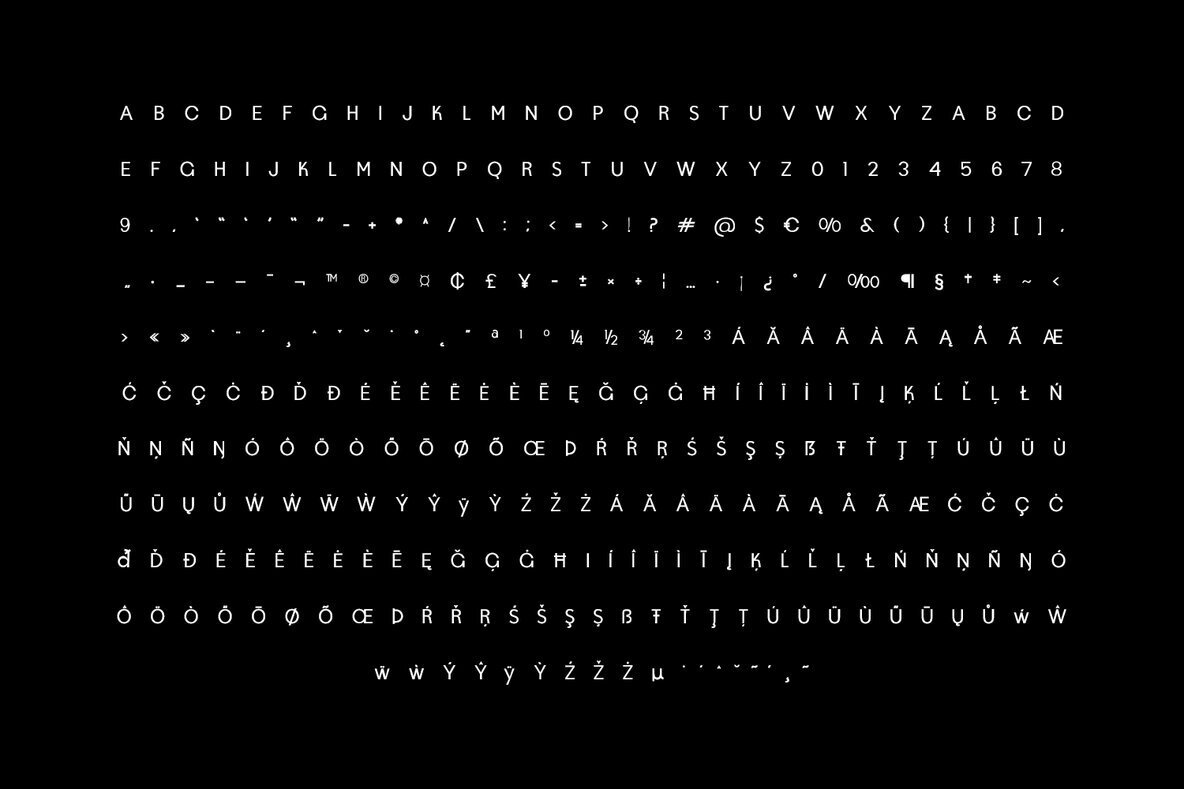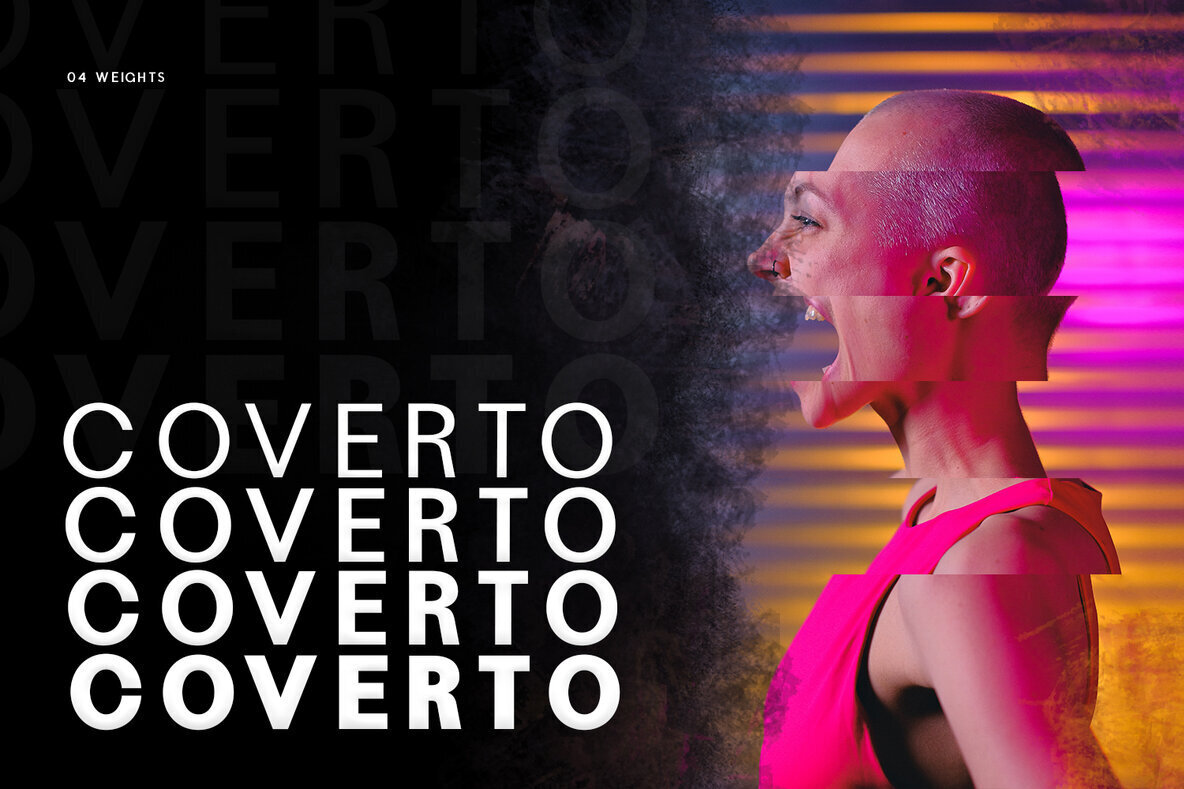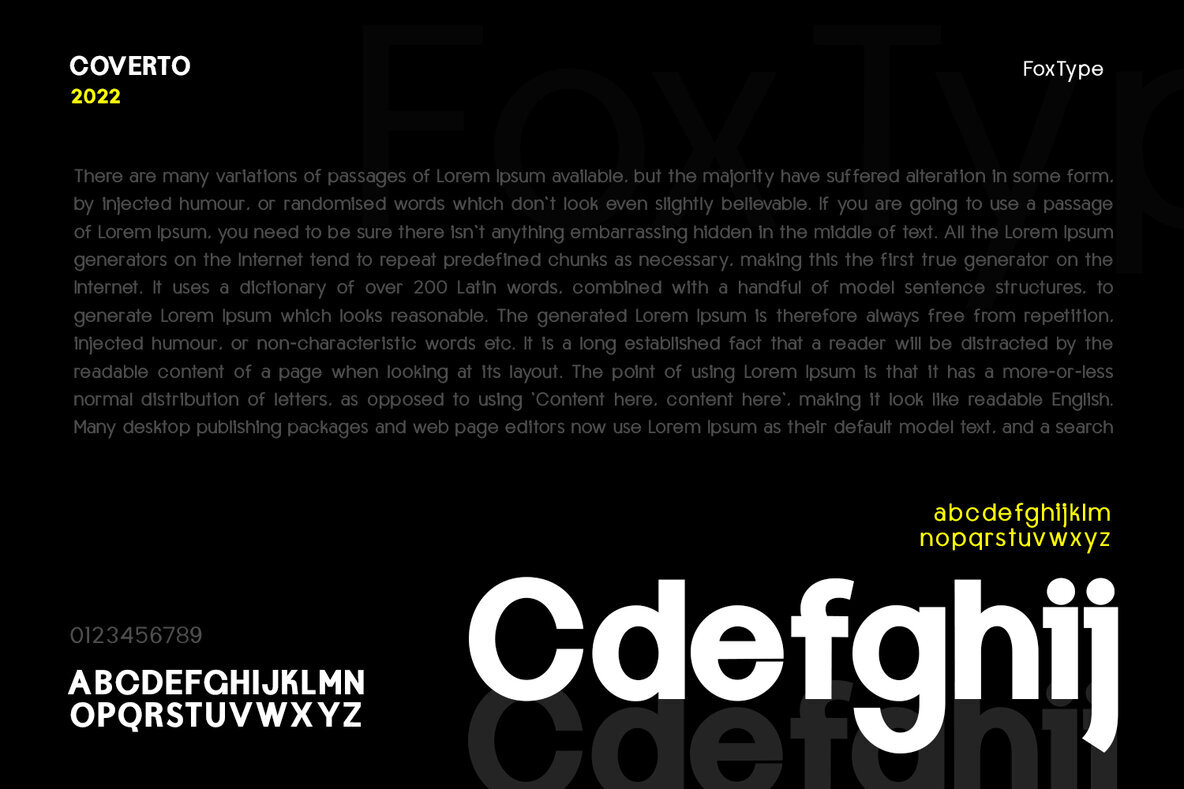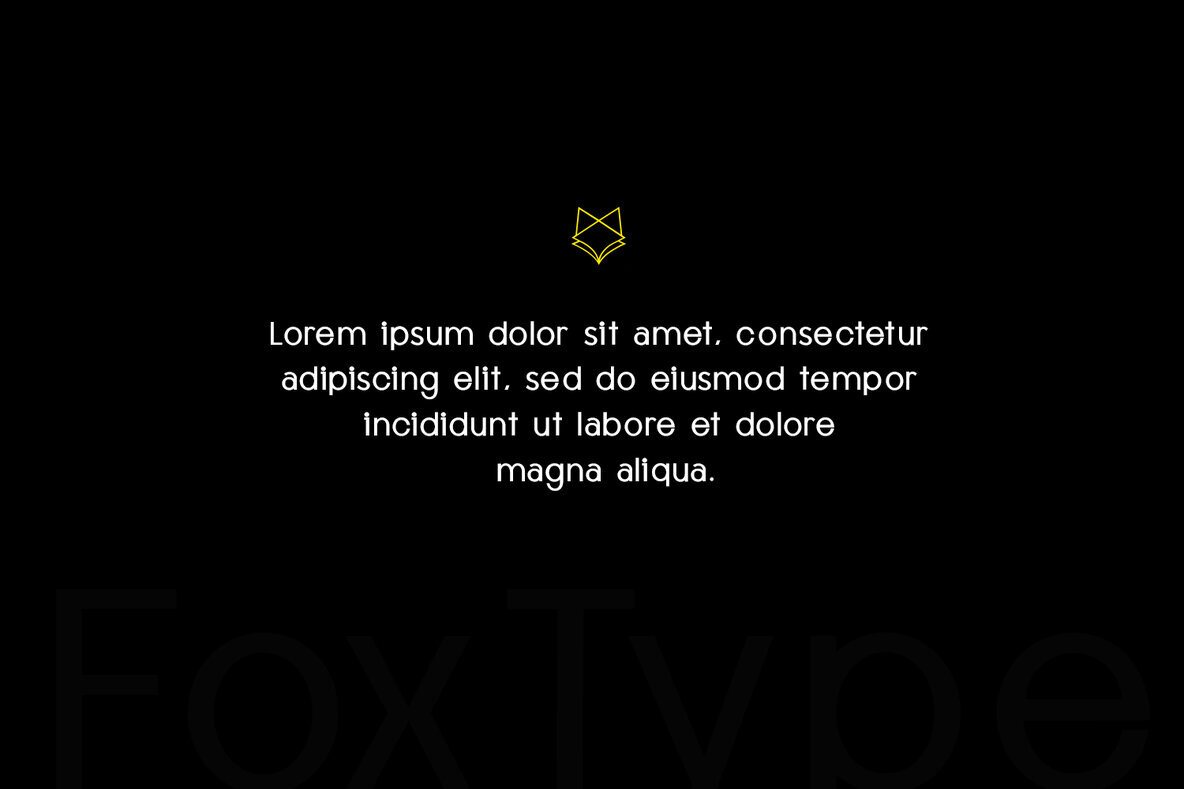
Coverto Display Font
Coverto Display by FoxType Co is an elegant typeface that offers a robust and stylish font family. Designed to balance strength with sophistication, its controlled letterforms and modern flair make it a standout choice for logos, magazines, and films. This typeface excels in branding, headlines, captions, paragraphs, and posters, effortlessly adapting to various design needs. Coverto Display features a variety of weights, allowing for creative experimentation across different applications. It is constructed to make a striking impression without compromising beauty or readability, imbued with a clean, minimalist warmth that remains versatile.Coverto Display: Versatile Typeface for Modern Design